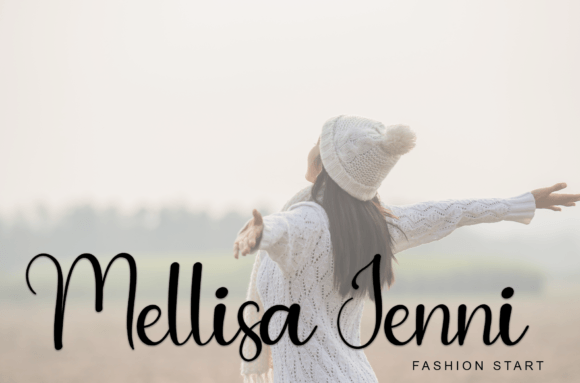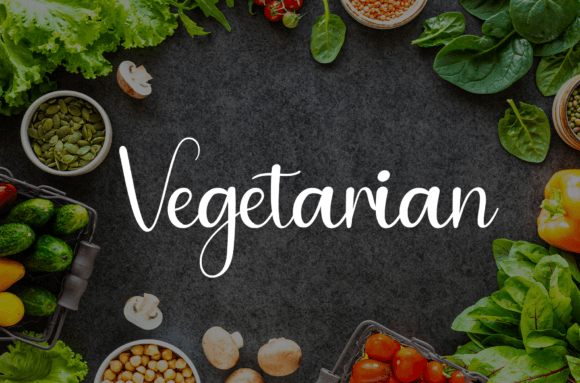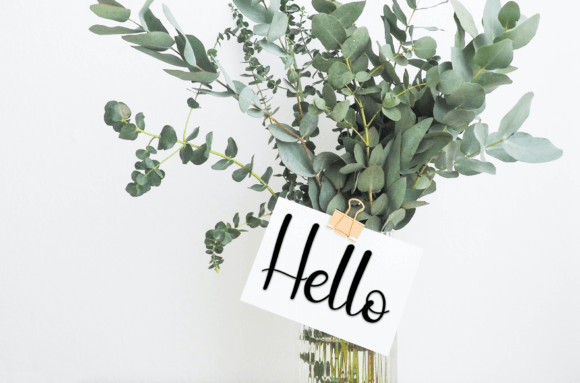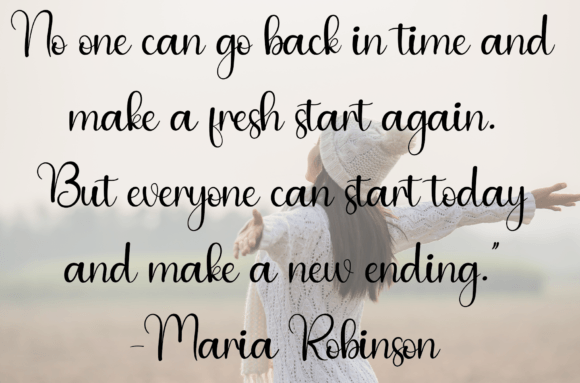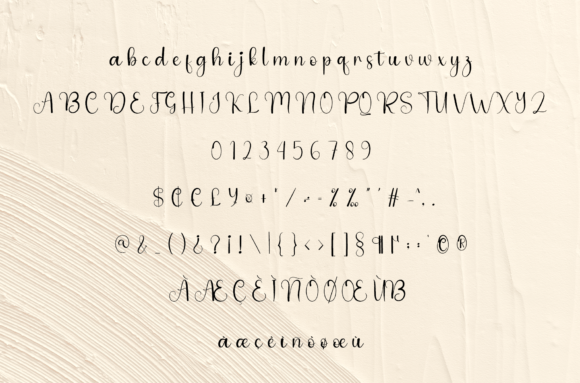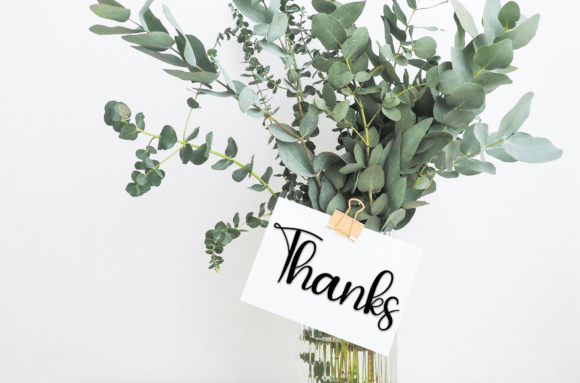
Hamburger Font: Add a Sweet and Friendly Touch to Your Designs
Are you looking for a font that can add a personal and playful touch to your designs? Look no further than the Hamburger font! This sweet and friendly handwritten font is perfect for creating fun and relaxed designs that are sure to delight. In this article, we’ll take a closer look at the Hamburger font, its features, and how you can use it to elevate your designs.
What is Hamburger Font?
Hamburger is a beautiful handwritten font that is designed to bring a sense of warmth and friendliness to your designs. With its smooth and flowing lines, this font is ideal for creating a variety of designs, from wedding invitations and cards to posters and social media graphics. The font is highly legible and can be used in a range of sizes, making it perfect for both digital and print designs.
Key Features of Hamburger Font
- Handwritten style: Hamburger font has a beautiful handwritten style that gives it a personal and unique touch.
- Sweet and friendly: The font has a sweet and friendly feel to it, making it perfect for designs that require a playful and approachable tone.
- Fun and relaxed: Hamburger font is ideal for creating fun and relaxed designs that are sure to delight.
- Highly legible: The font is highly legible and can be used in a range of sizes, making it perfect for both digital and print designs.
Uses of Hamburger Font
Hamburger font is a versatile font that can be used in a variety of designs, including:
- Wedding invitations: The font’s sweet and friendly style makes it perfect for creating beautiful wedding invitations that are sure to impress.
- Cards: Hamburger font is ideal for creating greeting cards, birthday cards, and other types of cards that require a personal touch.
- Posters: The font’s fun and relaxed style makes it perfect for creating posters that are sure to grab attention.
- Social media graphics: Hamburger font can be used to create social media graphics that are engaging, fun, and relaxed.
Tips for Using Hamburger Font
Here are some tips for using Hamburger font in your designs:
- Use it in combination with other fonts: Hamburger font can be used in combination with other fonts to create a unique and interesting design.
- Experiment with different sizes: The font is highly legible and can be used in a range of sizes, so experiment with different sizes to find the one that works best for your design.
- Add a personal touch: Hamburger font is perfect for adding a personal touch to your designs, so don’t be afraid to get creative and add your own unique style.
In conclusion, Hamburger font is a sweet and friendly handwritten font that is perfect for adding a personal and playful touch to your designs. With its smooth and flowing lines, this font is ideal for creating a variety of designs, from wedding invitations and cards to posters and social media graphics. Whether you’re a designer or a crafter, Hamburger font is a great addition to your font collection.